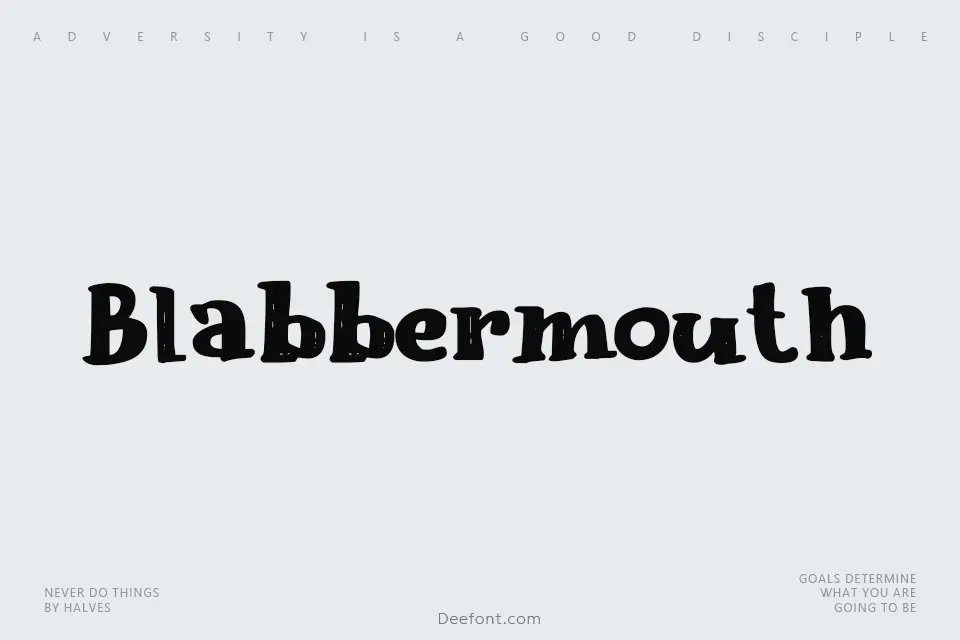
Blabbermouth Font
Blabbermouth Font is a bold and playful typeface designed by David Kerkhoff and published by Hanoded. This hand-drawn font exudes a lively, expressive charm, making it perfect for projects that call for a touch of personality and creativity. With its irregular, whimsical strokes and a slightly rough texture, Blabbermouth captures the essence of handcrafted design. It is available in two styles, offering versatility for both casual and decorative applications. Whether used for posters, headlines, branding, or creative artwork, Blabbermouth adds a vibrant and dynamic flair to any composition. Its unique character makes it an excellent choice for designers seeking an unconventional yet approachable typeface.